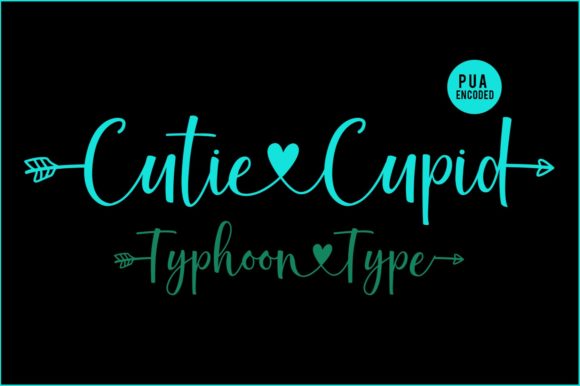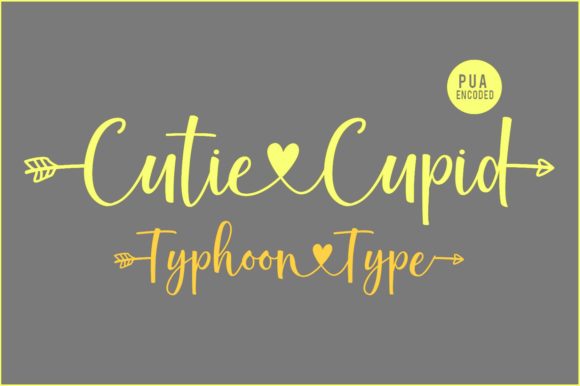
Discover the Charm of Cutie Cupid Font: Elevate Your Designs with Elegance
In the world of typography, fonts play a pivotal role in conveying messages, evoking emotions, and adding personality to designs. Among the myriad of fonts available, the Cutie Cupid font stands out for its unique blend of elegance and charm. This article delves into the characteristics, uses, and benefits of the Cutie Cupid font, making it a must-read for designers, crafters, and anyone looking to add a touch of sophistication to their projects.
What is Cutie Cupid Font?
Cutie Cupid is a flowing handwritten font that exudes an elegant touch, making it perfect for a wide range of projects. Its incredibly distinct and timeless style is designed to capture the heart of anyone who lays eyes on it. Whether you’re working on a romantic getaway brochure, a wedding invitation, or a fashion brand’s logo, Cutie Cupid promises to add a dash of love and charm to your designs.
Key Features of Cutie Cupid Font
- Elegant and Flowing Script: Cutie Cupid boasts a smooth, flowing script that gives any text a sense of movement and grace.
- Handwritten with Love: The font’s handwritten nature adds a personal touch, making it ideal for projects that require a more intimate and bespoke feel.
- Distinct and Timeless Style: Its unique style ensures that your designs stand out while maintaining a classic appeal that won’t go out of fashion.
- Versatility: From romantic and feminine to elegant and sophisticated, Cutie Cupid can adapt to various design needs.
Who Can Benefit from Using Cutie Cupid Font?
The versatility of Cutie Cupid font makes it a valuable asset for a broad audience, including:
- Graphic Designers: Looking for a font that adds elegance and a personal touch to their projects.
- Wedding Planners and Photographers: Needing a romantic and sophisticated font for invitations, branding, and marketing materials.
- Fashion Brands: Seeking a stylish and timeless font to represent their brand’s image.
- Stationery and Crafters: Creating handmade cards, journals, and other paper crafts that require a touch of elegance.
Tips for Using Cutie Cupid Font Effectively
To maximize the impact of Cutie Cupid font in your designs, consider the following tips:
- Pair with Complementary Fonts: Use Cutie Cupid as a headline font and pair it with a simpler sans-serif font for body text to create contrast.
- Adjust Letter Spacing: For a more airy and elegant look, consider increasing the letter spacing.
- Play with Colors: While the font itself is elegant, choosing the right color can enhance its beauty. Pastels, golds, and soft pinks can complement its charm.
- Use it Sparingly: Given its elegant and distinctive nature, use Cutie Cupid font sparingly to highlight key messages or headings.
Cutie Cupid font is more than just a typeface; it’s a design element that can transform your projects with its elegant and charming presence. Whether you’re a professional designer or a DIY crafter, this font offers a simple yet effective way to add a touch of sophistication and love to your work. With its timeless style and versatile application, Cutie Cupid font is sure to become a favorite in your typography arsenal. So, fall in love with its charm and let it elevate your designs to new heights of elegance and appeal.
Discover the magic of Cutie Cupid font today and make your designs unforgettable!